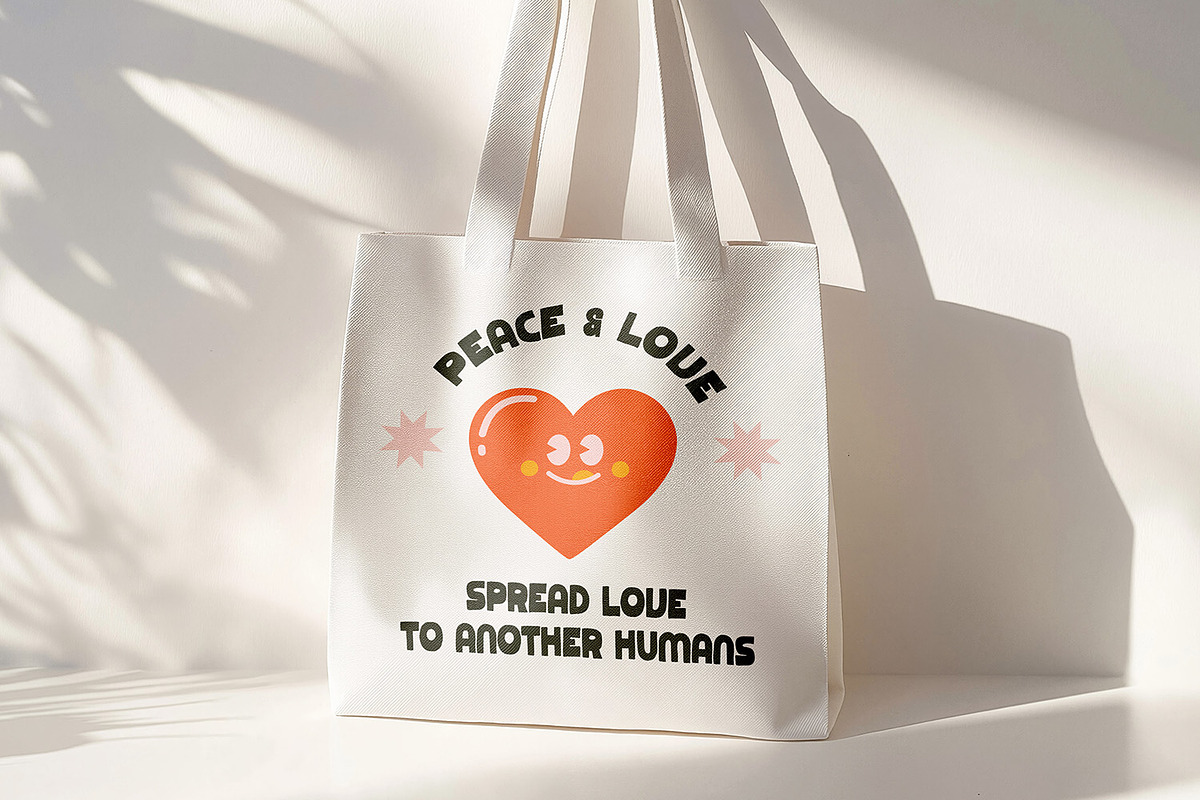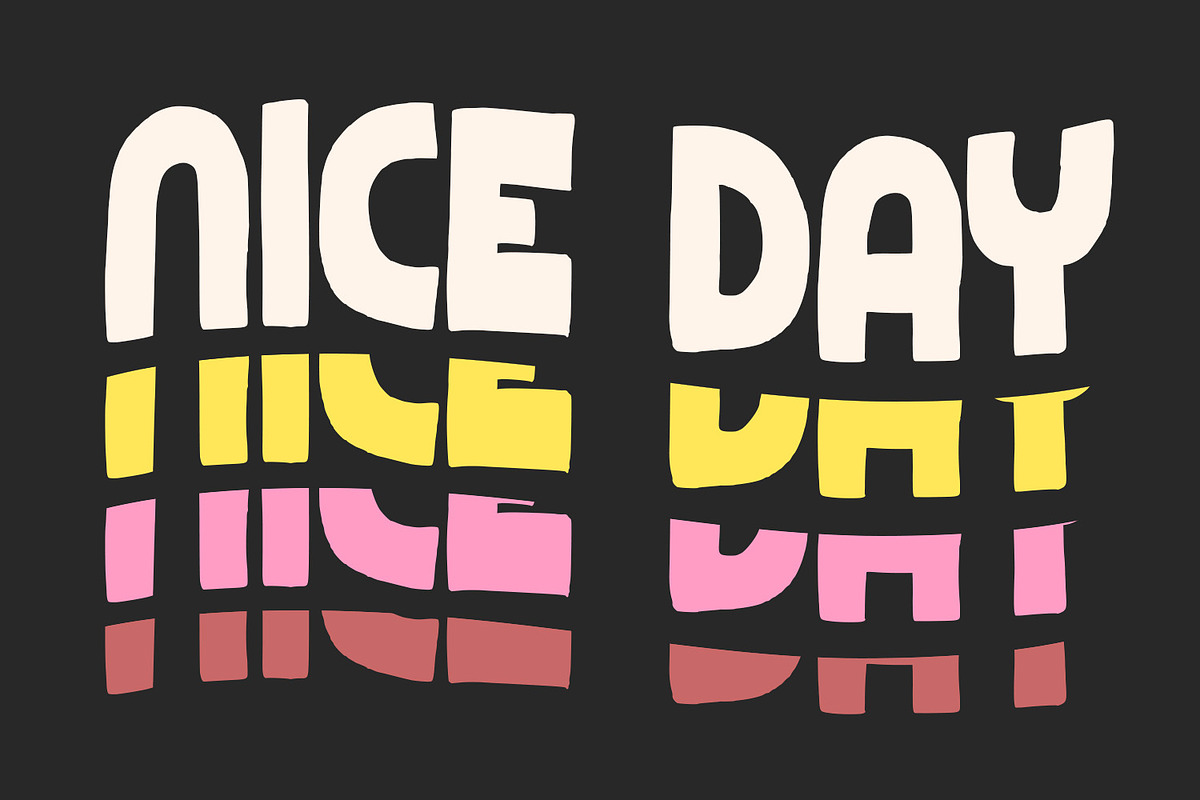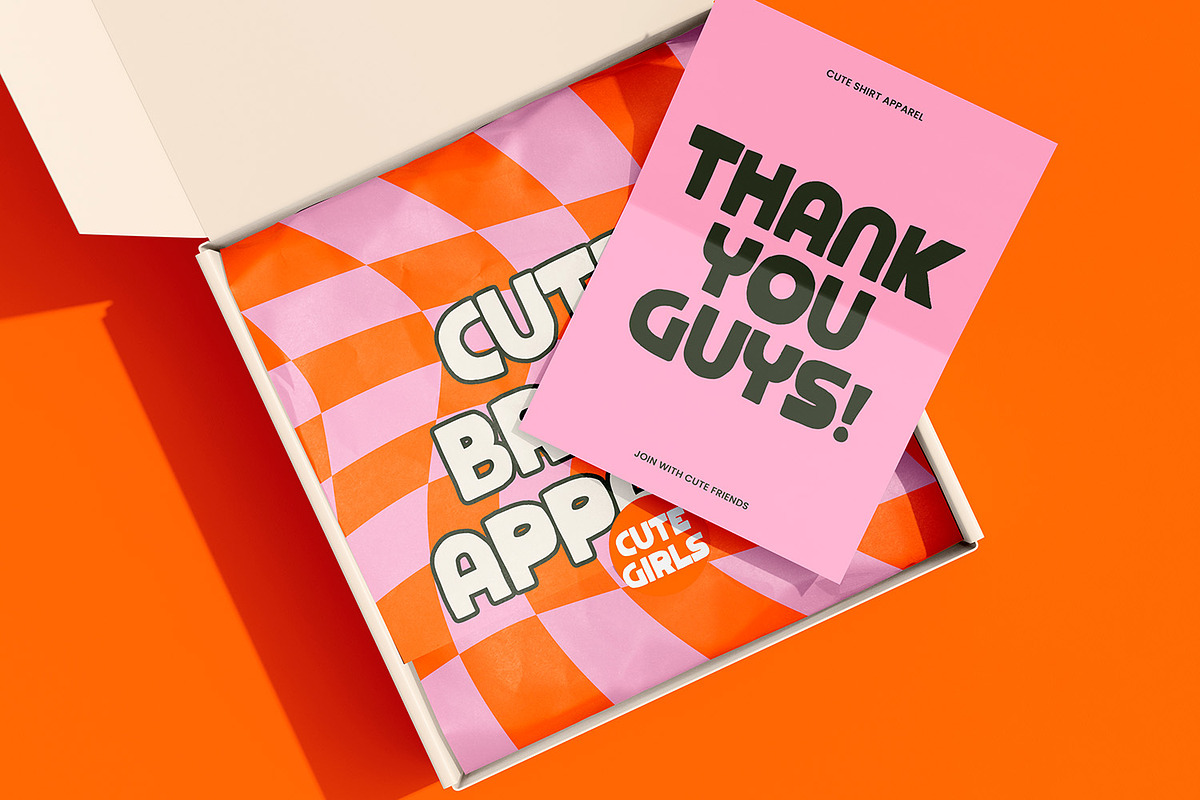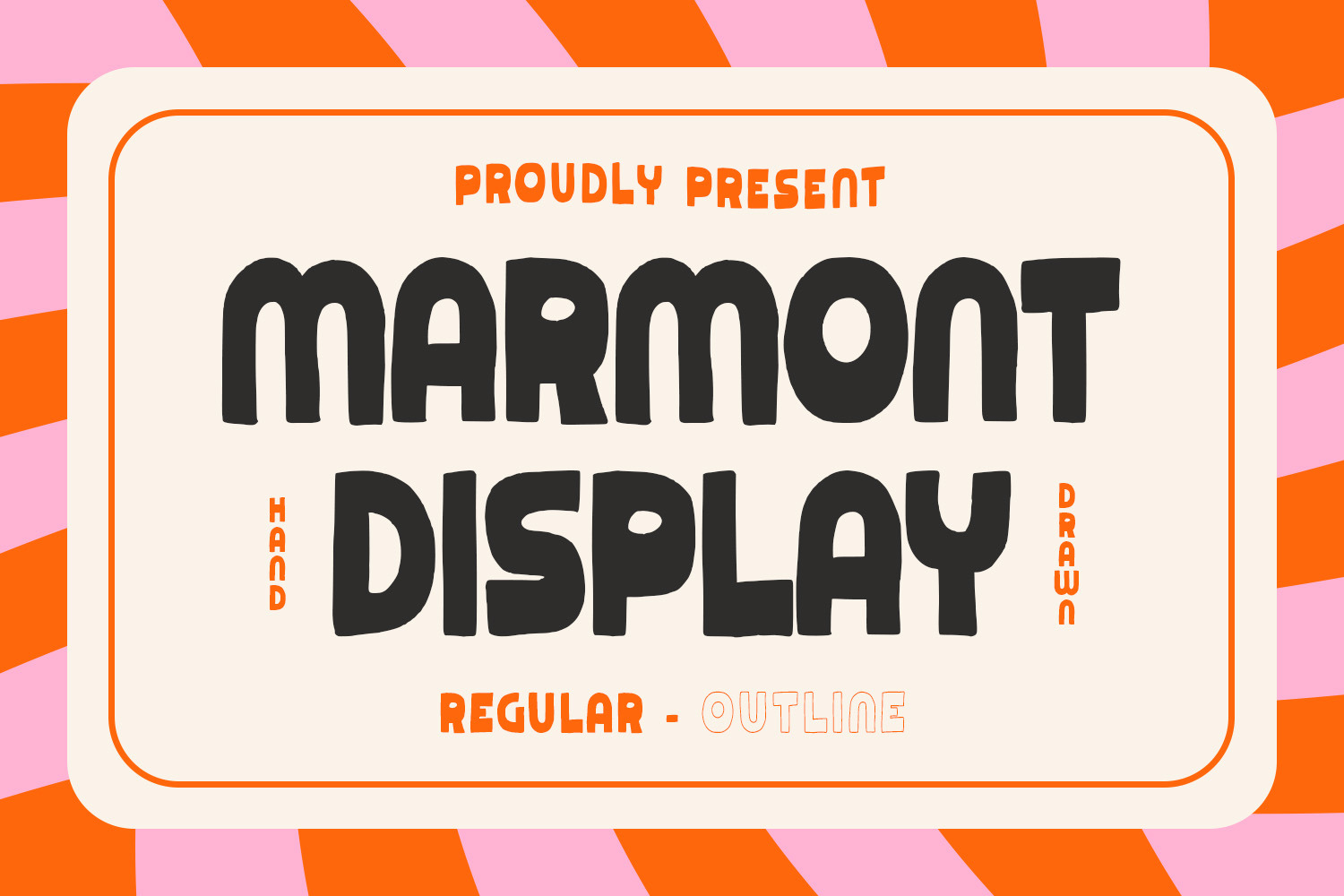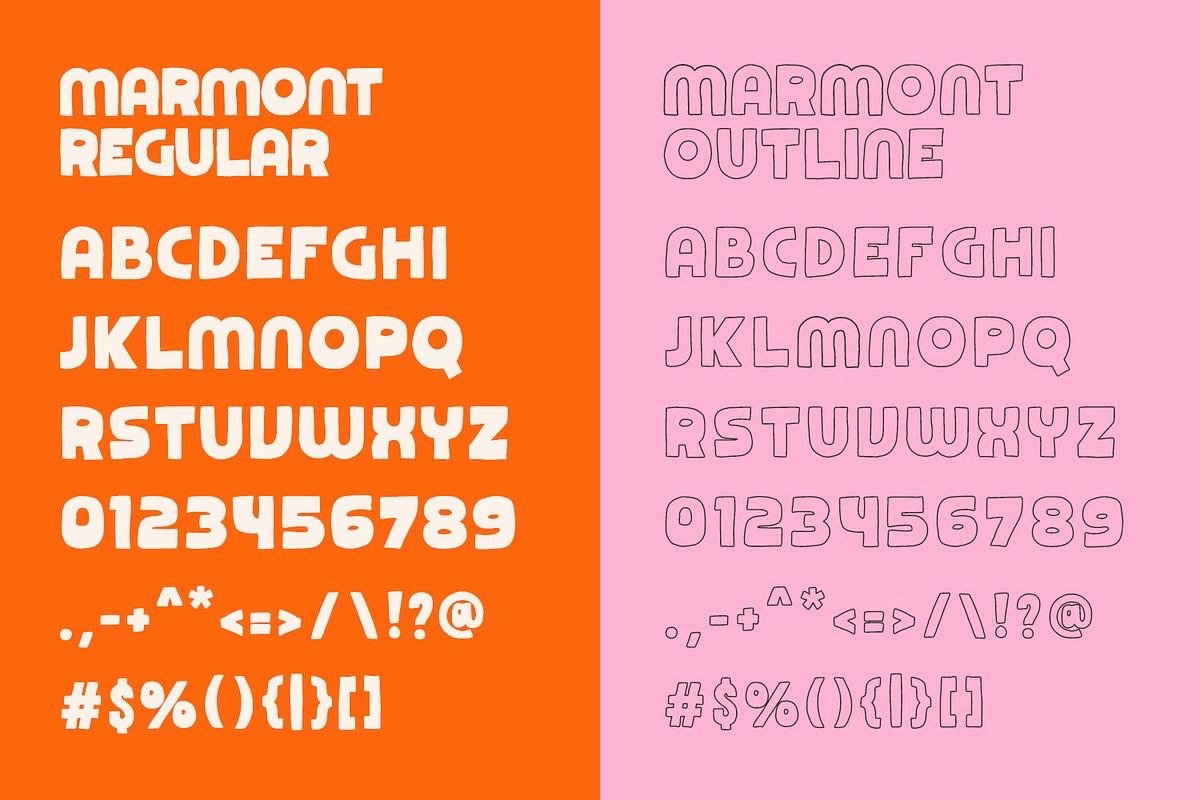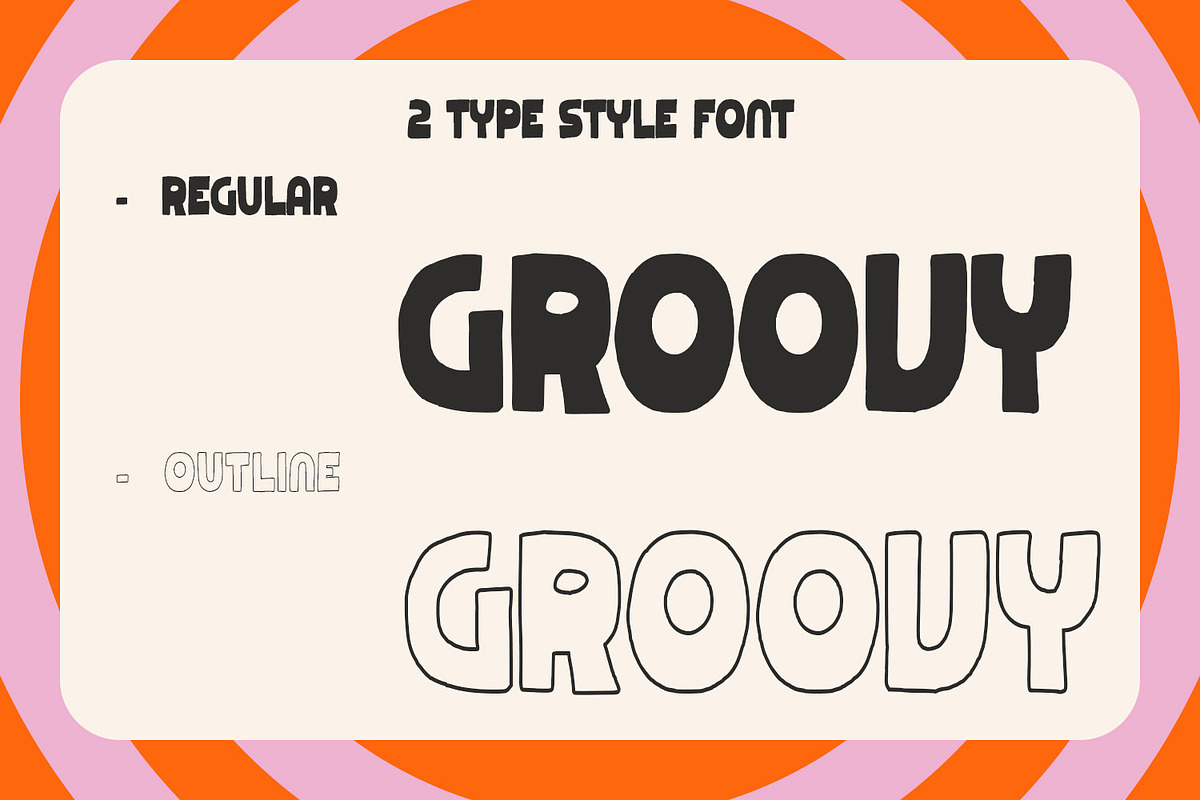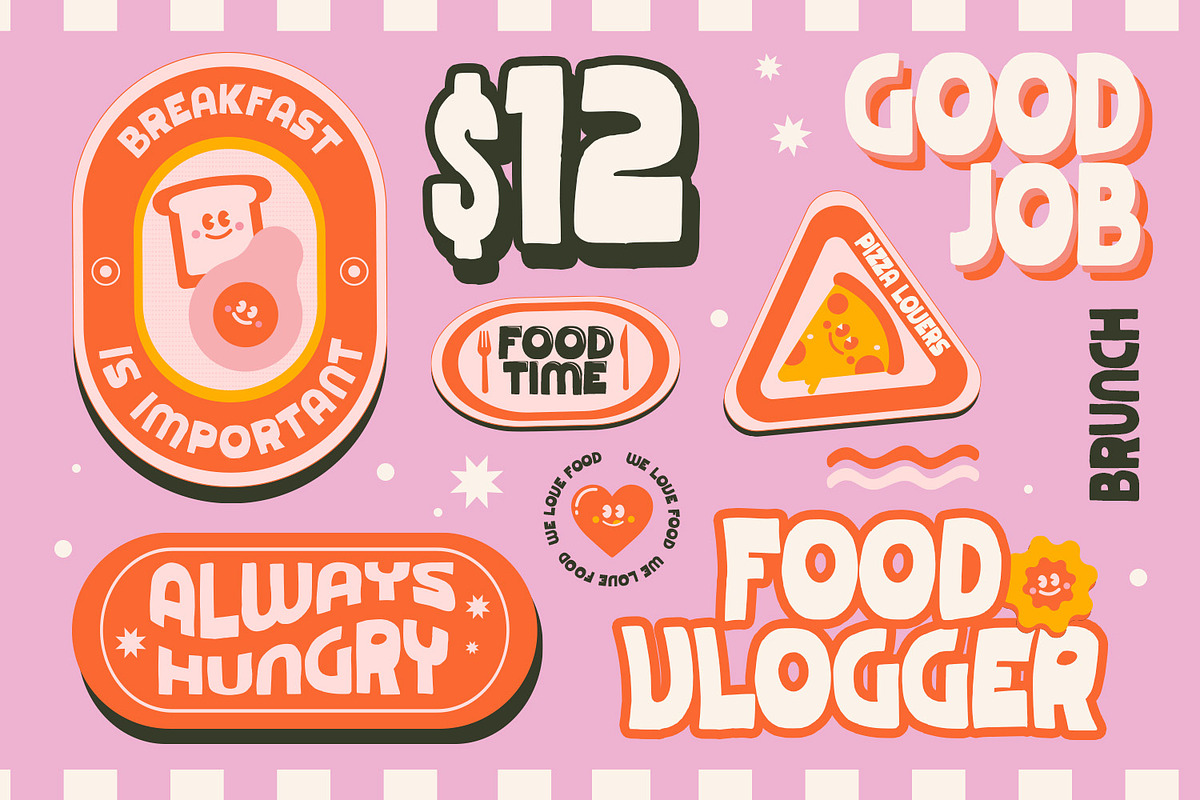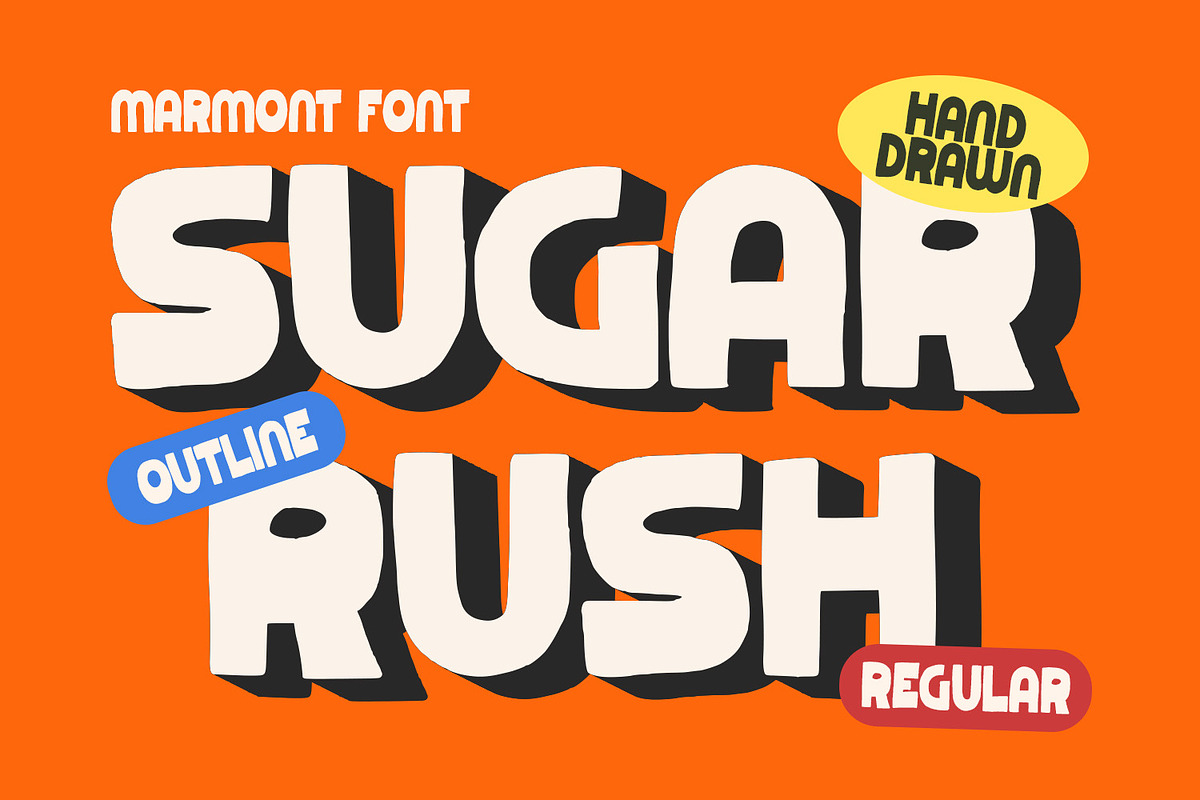
Marmont - Display Font
Font Description: Marmont
Marmont is a hand-drawn retro display font that exudes the charm of mid-century signage and artisanal typography. Inspired by the imperfect yet captivating lettering of 1950s diner menus and hand-painted advertisements, Marmont combines playful strokes, uneven baselines, and intentional wobbles to create a font that feels authentically human.
### Key Features:
- Handcrafted Aesthetic: Each character has subtle variations in weight and texture, mimicking real brush or pen marks.
- Retro Appeal: Bold, bouncy letterforms with exaggerated serifs and quirky curves for vintage vibes.
- Full Character Set: Includes uppercase, lowercase, numerals, and punctuation for customization.
- Perfect for Display: Designed for headlines, logos, packaging, and posters—best used at larger sizes.
### Ideal For:
- Vintage branding (cafés, bars, barbershops)
- Retro product packaging (hot sauce, beer labels)
- Merchandise (T-shirts, stickers, patches)
- Themed events (music festivals, diner decor)
Features : Uppercase and lowercase characters